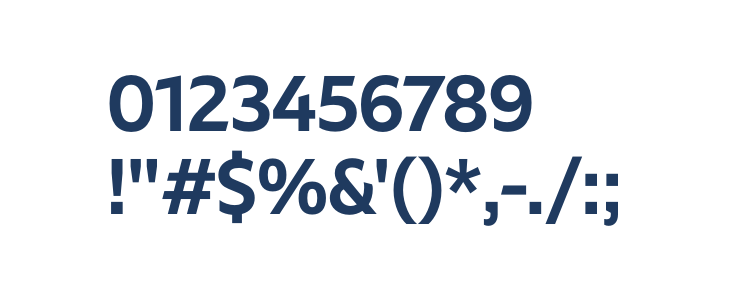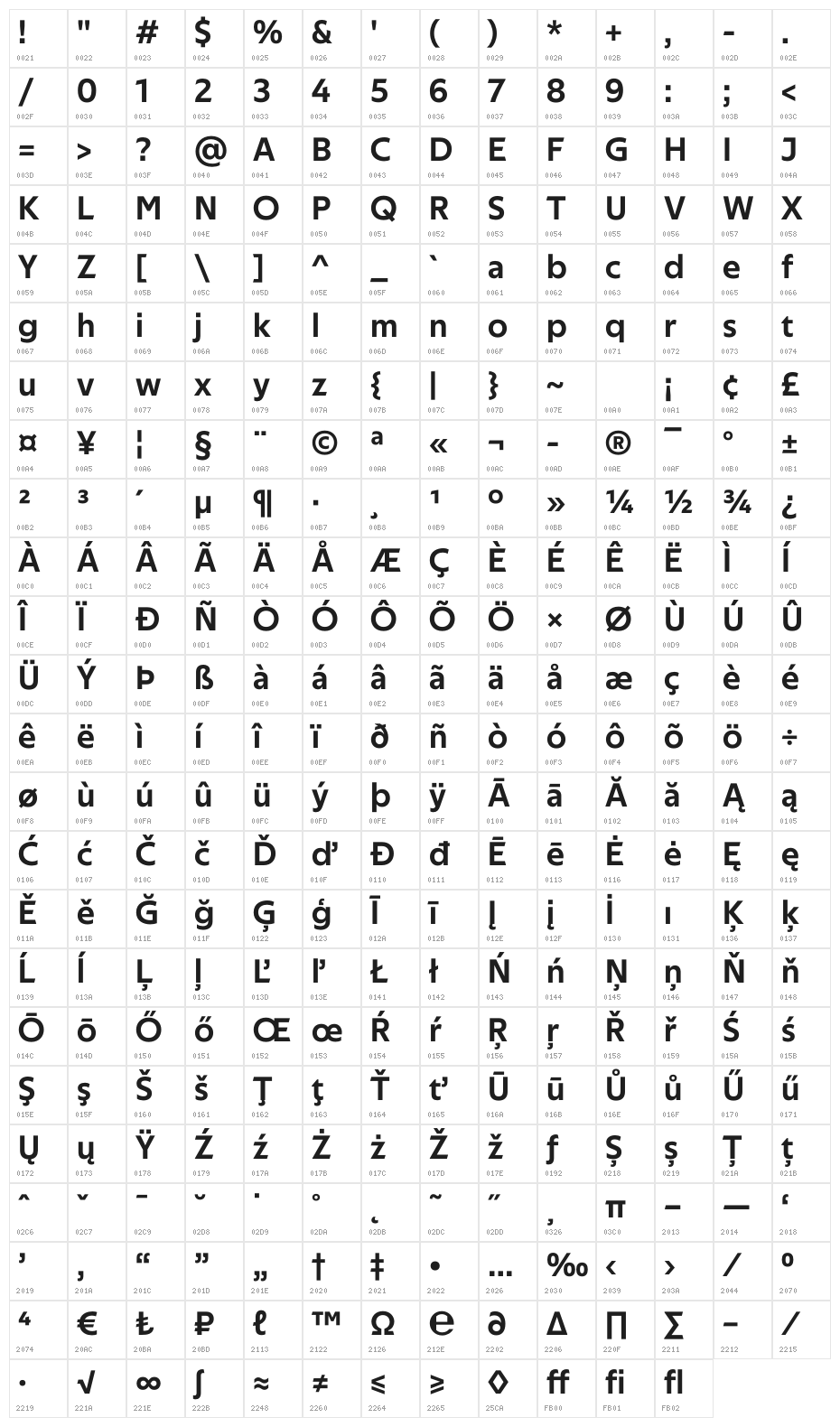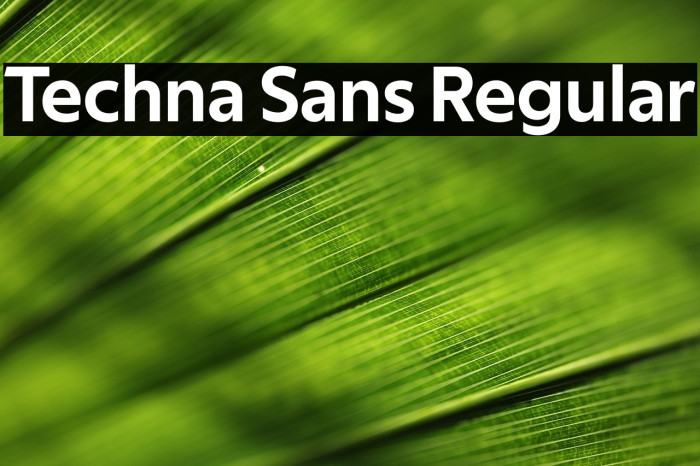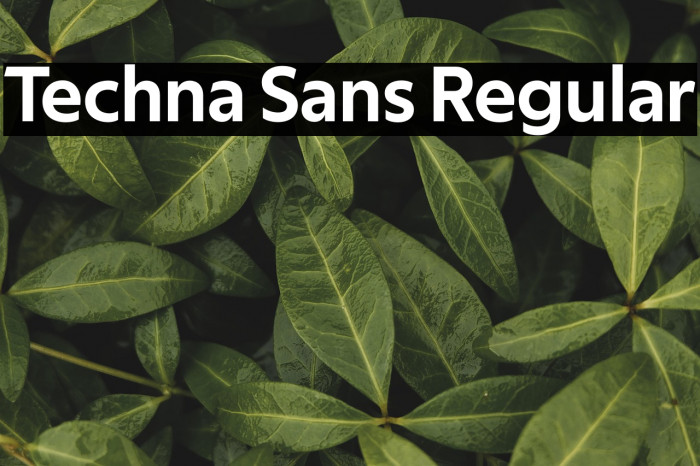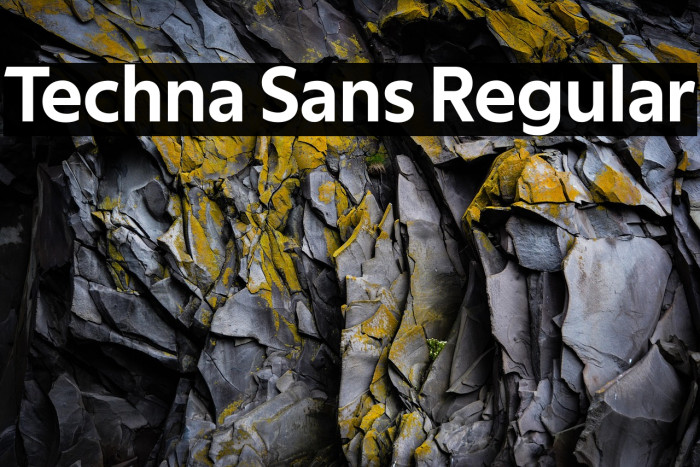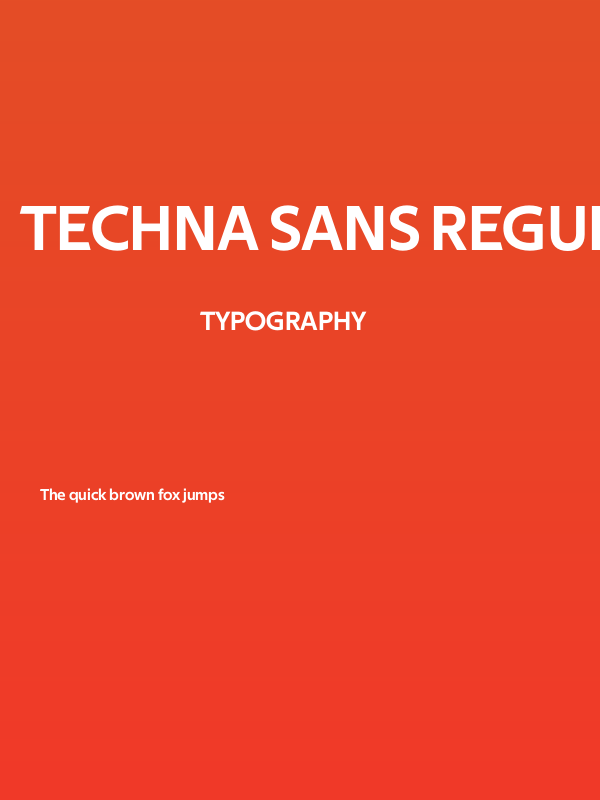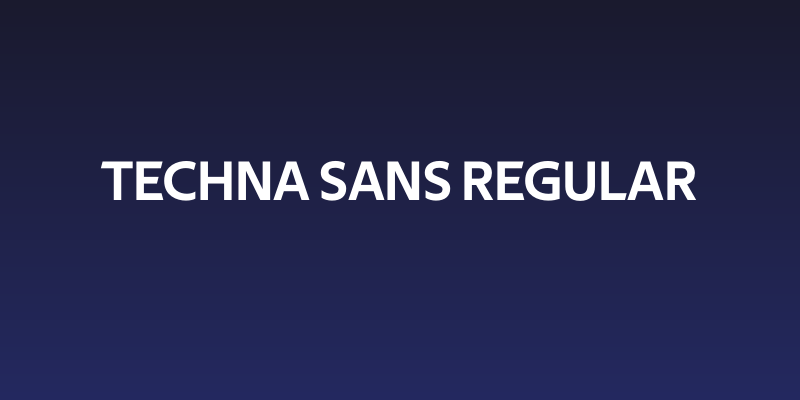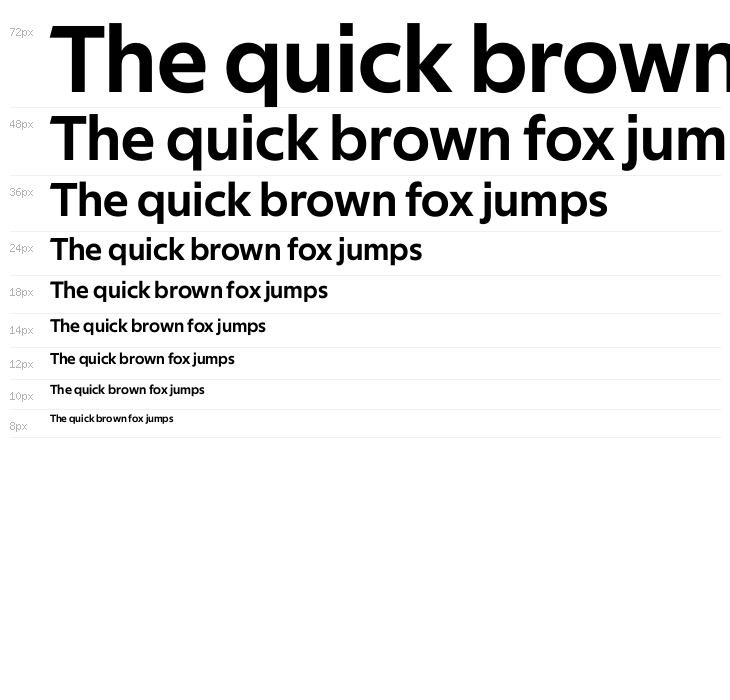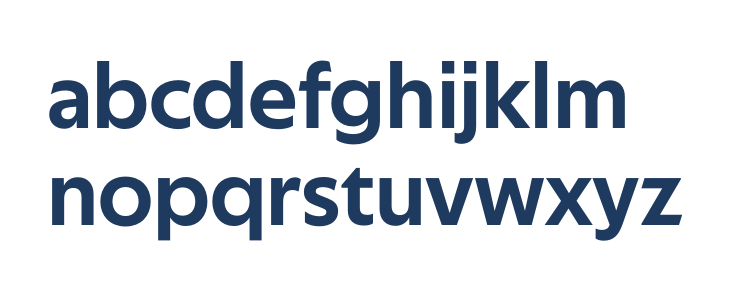
Techna Sans Regular Font
Techna Sans Regular Description
This font features a clean and modern sans-serif design, characterized by its geometric shapes and uniform stroke widths. The uppercase letters are bold and assertive, while the lowercase letters maintain a consistent and harmonious appearance. The numerals are clear and easily readable, making them suitable for both digital and print applications. Special characters are well-defined, adding versatility to the font's use. The overall design is sleek and professional, making it ideal for contemporary branding and design projects.